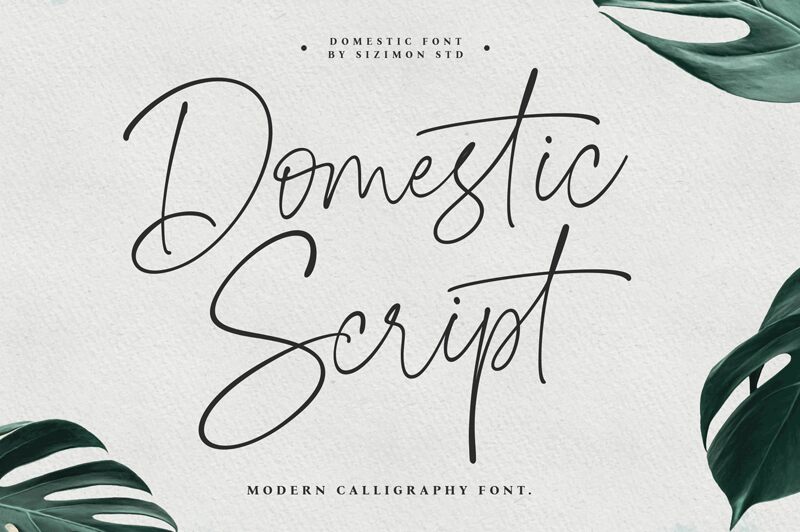
Introducing the Domestic Script font designed by Faisal Tanjung, a beautiful and intricate calligraphy font featuring a thin weight. Suitable for creative projects such as logo and stationery design, wedding invitations, or book covers.
Domestic Script
Sizimon
Faisal Tanjung